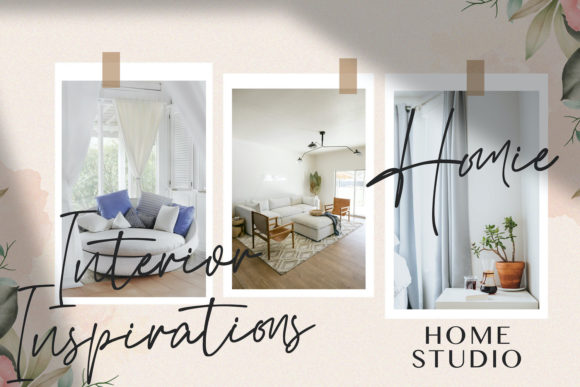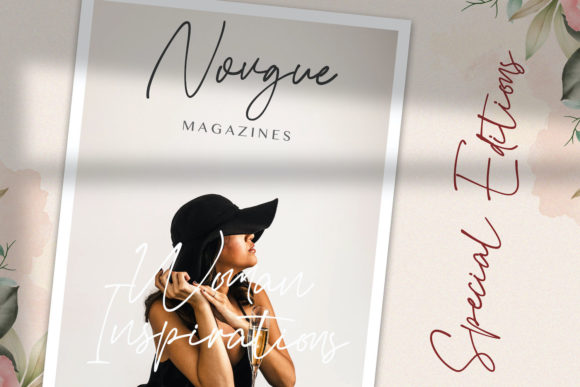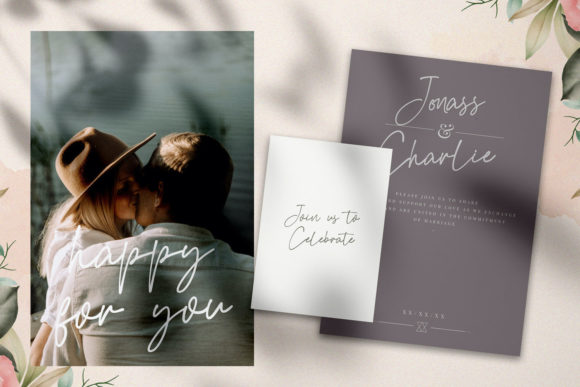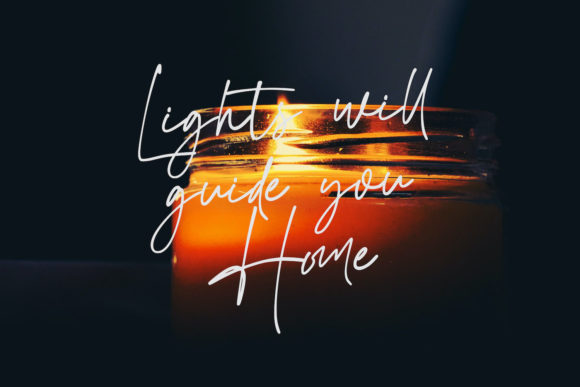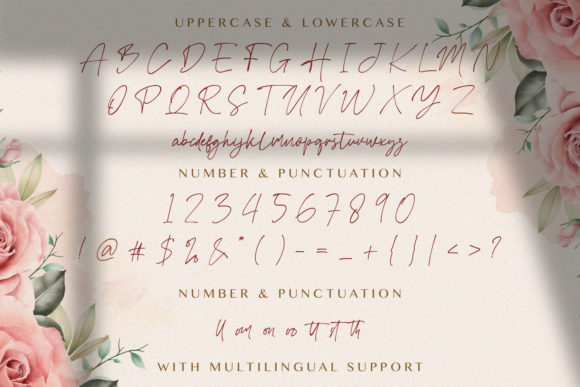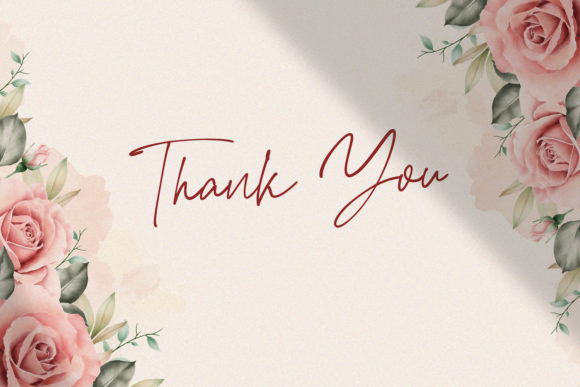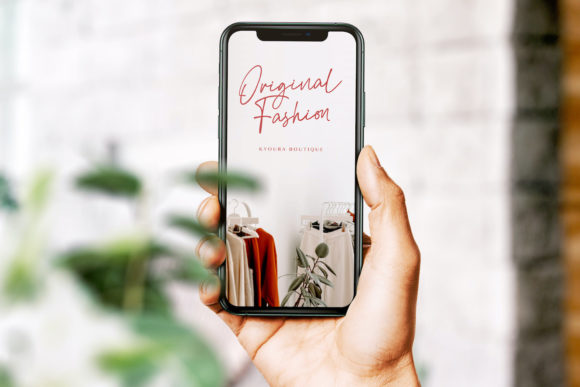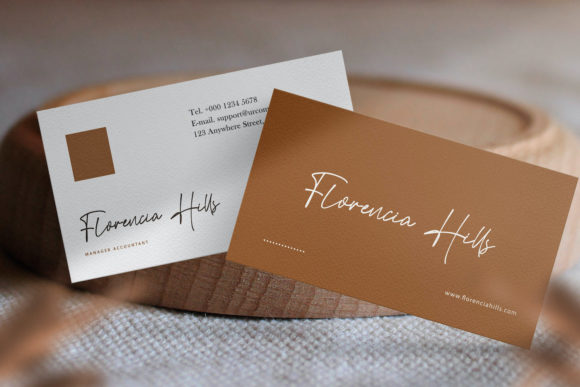
Attang Script Font
About Attang Script Font
Attang Script is a lovely and thin lettered script font that exudes elegance and class. This font was particularly crafted for those who need a beautiful and refreshing look to their designs.